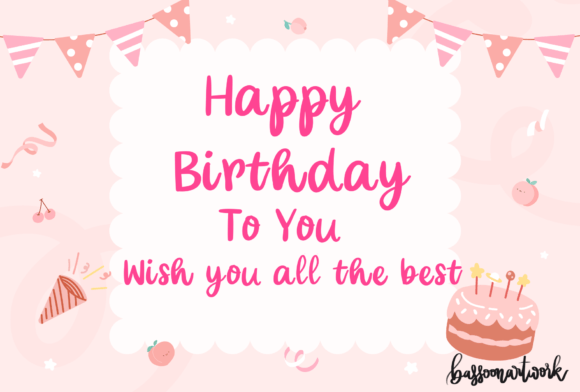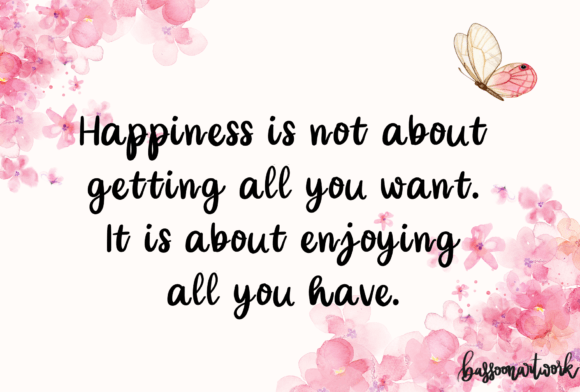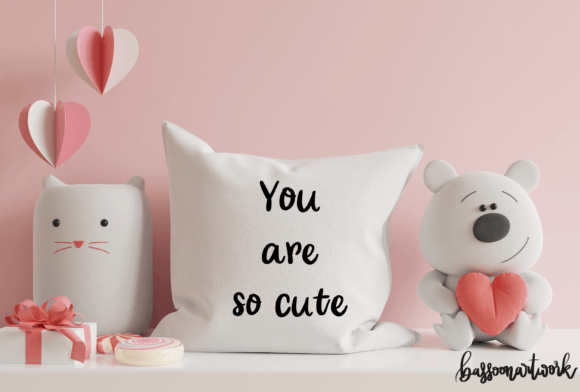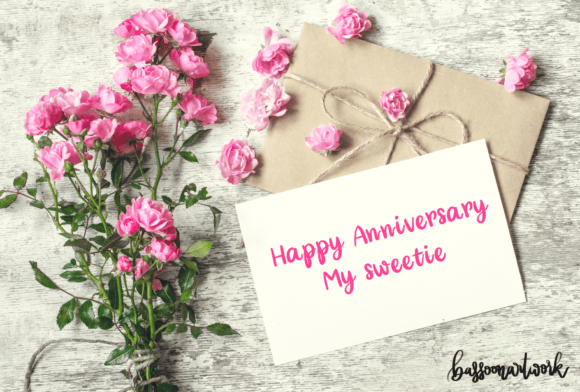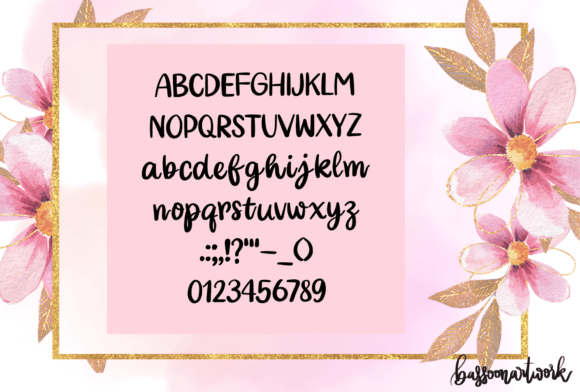
The Delightful Alexa Font: A Designer’s New Best Friend
I still remember the last time I was working on a project, pouring my heart and soul into creating the perfect social media graphic. I had the colors, the imagery, and the message all figured out, but something was missing. The font I had chosen just wasn’t doing it for me – it was too formal, too boring, and just not conveying the vibe I was going for. That’s when I stumbled upon the Alexa font, and let me tell you, it was love at first sight! ✨
An Honest Review of Alexa Font
What I Love About Alexa Font
- ✨ Simplicity and charm: Alexa font exudes a sense of simplicity and charm that makes it perfect for a wide range of projects.
- ✅ Clean and easy to read: The clean and easy-to-read style of Alexa font makes it ideal for body text, headings, and even social media graphics.
- 💫 Authentic, handcrafted feel: The natural flow of the strokes gives Alexa font an authentic, handcrafted feel that adds a personal touch to any project.
While Alexa font is a delightful addition to any project, it’s not without its quirks. 🤔 Here are a few things to keep in mind:
- ⚠️ Limited use in formal projects: Alexa font is a highly informal font, so it may not be the best choice for formal projects or professional documents.
- ⚠️ May not work well in small sizes: Like many handwritten fonts, Alexa font may not work well in small sizes, so it’s best to use it in larger sizes where its charm can shine.
The Backstory of Alexa Font
Alexa font was designed by a team of typographers who wanted to create a font that was both simple and charming. The font was inspired by traditional handwriting and is meant to evoke a sense of authenticity and personality. The designers behind Alexa font aimed to create a font that would be perfect for a wide range of projects, from personal stationery to social media graphics.
| Font Name | Alexa Font |
| Author | Bassoonartwork |
Q: What is Alexa font?
Alexa font is a delightful handwritten font that exudes simplicity and charm.
Q: What is Alexa font used for?
Alexa font is perfect for a wide range of projects, from personal stationery to social media graphics.